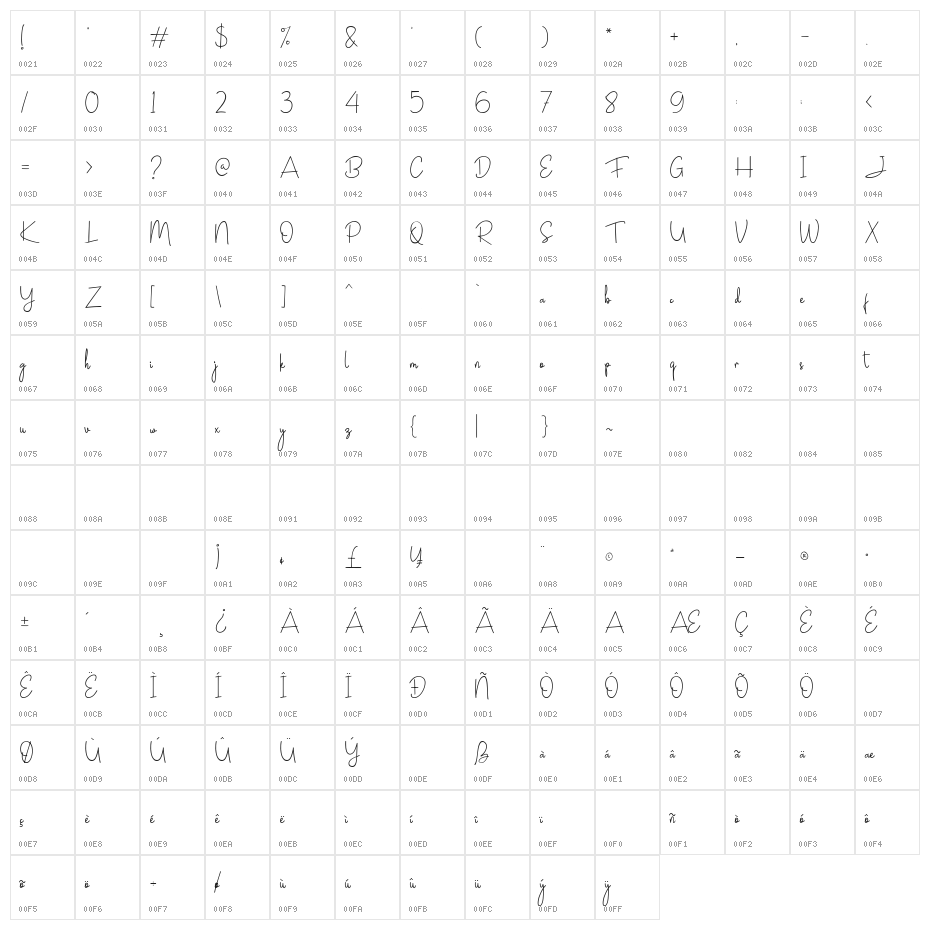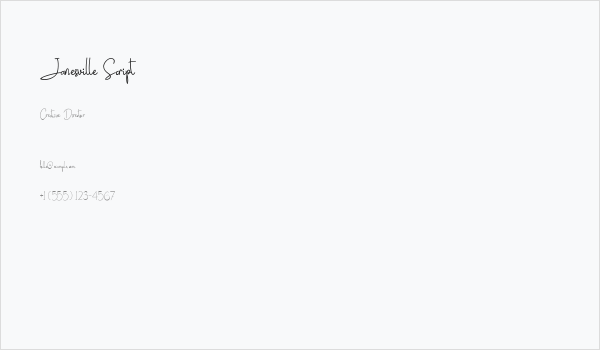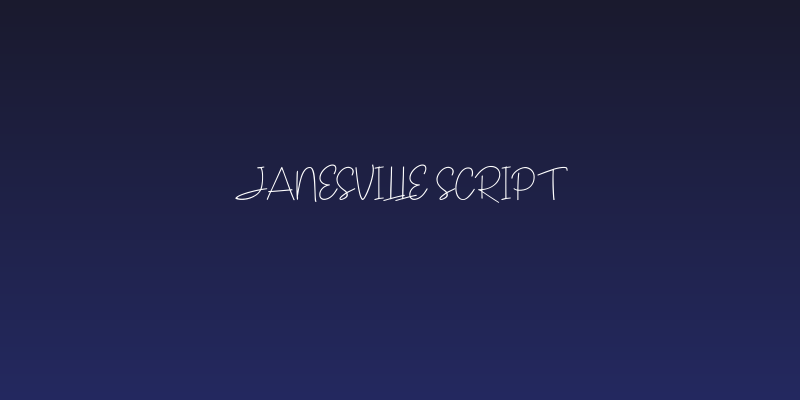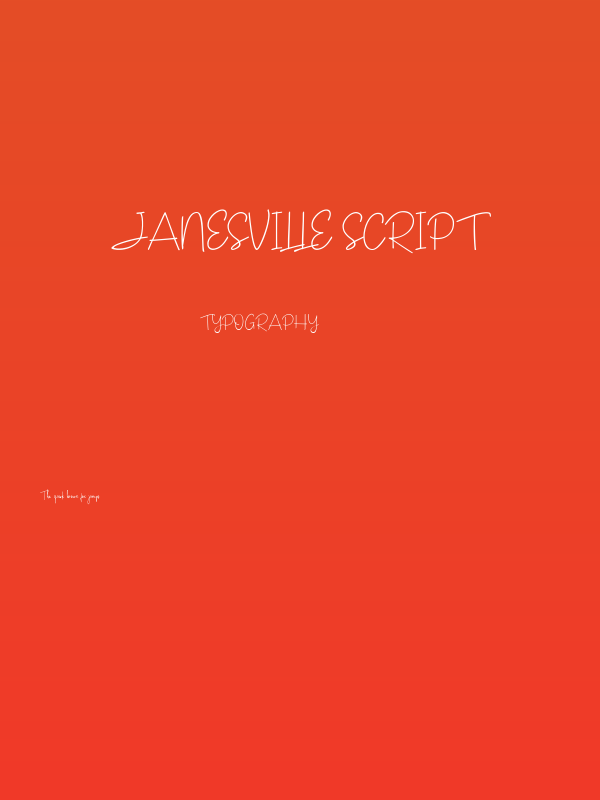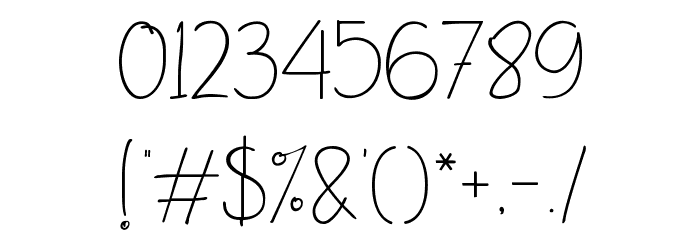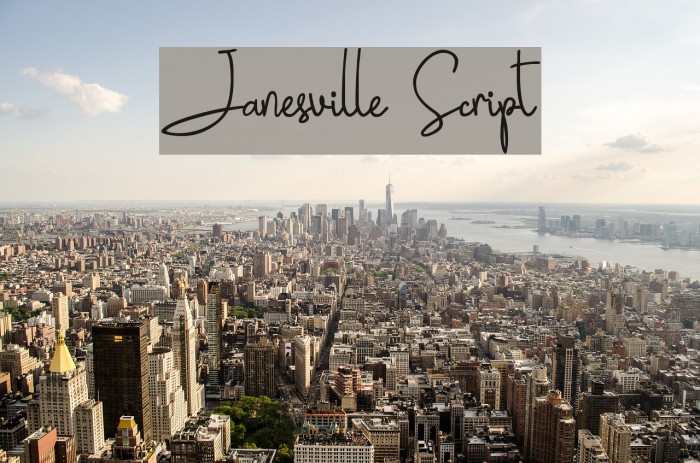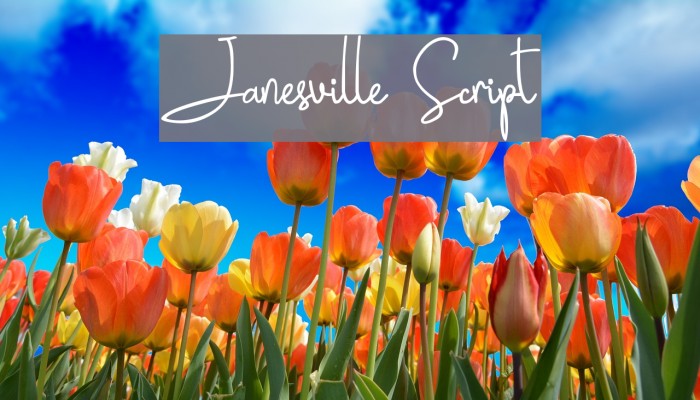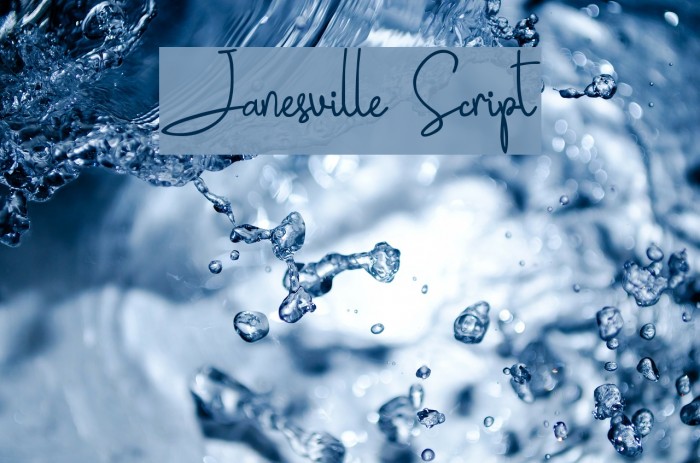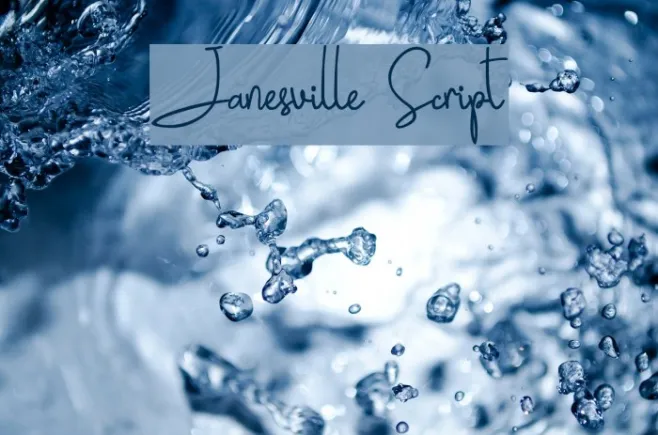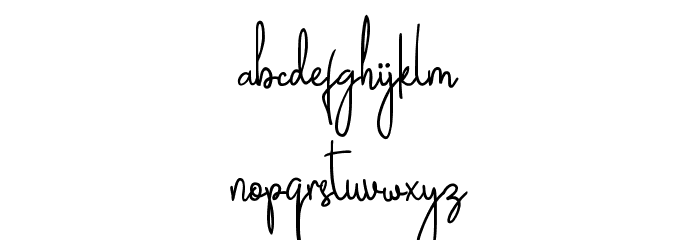
Janesville Script Font
Janesville Script Description
This font features a playful and elegant script style, characterized by its flowing, interconnected letters that mimic natural handwriting. The uppercase letters are tall and slender, with a slight slant that adds a dynamic feel. The lowercase letters are more compact, maintaining a consistent flow that enhances readability. The numerals are clear and distinct, matching the overall style of the alphabet. Special characters are well-integrated, ensuring versatility in various design contexts. The font's delicate strokes and smooth curves make it suitable for projects that require a personal, artistic touch.
| Use Case | Logos, Invitations, Social Media Graphics |
| Proposed Projects | Ideal for wedding invitations, greeting cards, branding projects, and social media graphics. |